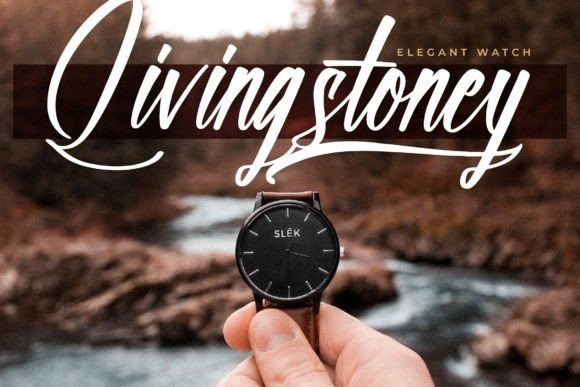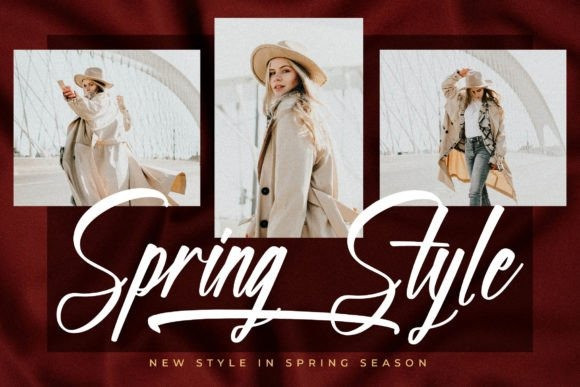
Helloway Rosaltteyno Font
Helloway Rosaltteyno Font – Modern Calligraphy Script suitable for any projects such as logos, branding projects, homeware designs, product packaging, mugs, quotes, posters, shopping bags, t-shirts, book covers, name cards, invitation cards, greeting cards, labels, photography, watermark, special events, and all your other lovely projects that need a beautiful script taste.